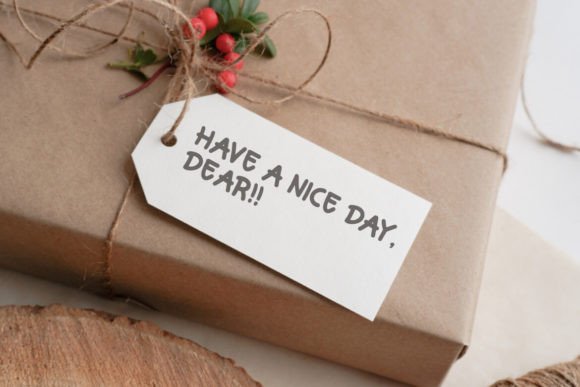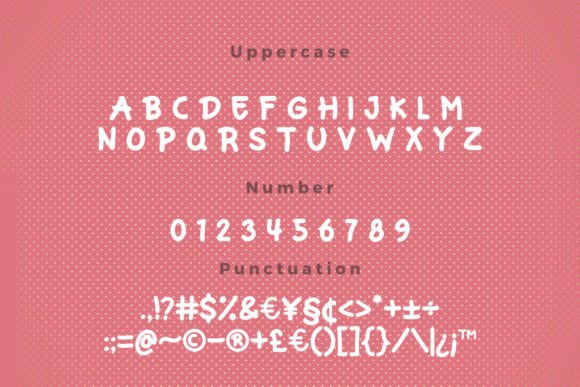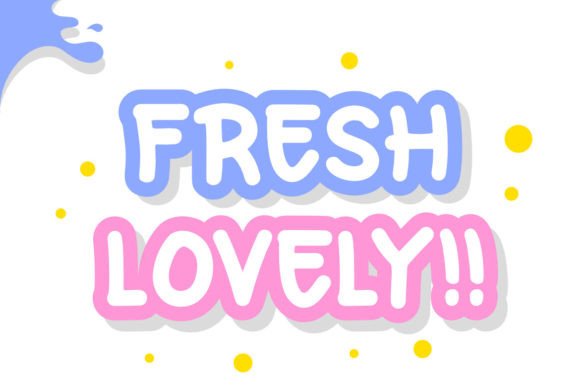
Introducing Deeps Font: A Fun and Modern Cartoon-Style Typography
In the world of typography, fonts play a crucial role in conveying messages, expressing emotions, and creating visual identities. For designers, crafters, and creative enthusiasts, finding the perfect font can be a daunting task. However, if you’re looking for a fun, modern, and high-quality font that can elevate your designs, look no further than Deeps Font.
**Deeps a Fun and Modern Font**
Deeps Font is a premium quality font, inspired by cartoon-style typography. Its unique and playful design makes it an excellent choice for a wide range of creative projects. Whether you’re designing flyers, quotes, posters, banners, packaging, merchandise, logotypes, or anything else, Deeps Font is the perfect companion.
What Makes Deeps Font Special?
Deeps Font stands out from the crowd due to its exceptional characteristics. Here are some of the key features that make it a must-have font:
- Cartoon-style typography: Deeps Font boasts a playful and fun design, reminiscent of cartoon-style typography. Its bold lines, rounded shapes, and vibrant feel make it perfect for projects that require a youthful and energetic vibe.
- High premium quality: Deeps Font is crafted with meticulous attention to detail, ensuring a high level of quality that rivals professional fonts. Its smooth curves, precise lines, and consistent letterforms make it a joy to work with.
- Versatility: Deeps Font is an incredibly versatile font that can be used for a wide range of projects. From print materials like flyers, posters, and brochures to digital applications like social media graphics, presentations, and more, Deeps Font adapts seamlessly.
Use Cases for Deeps Font
Deeps Font is an excellent choice for various creative projects, including:
- Flyers and brochures: Add a playful touch to your marketing materials with Deeps Font. Its bold and eye-catching design ensures your message stands out.
- Posters and banners: Create stunning posters and banners with Deeps Font. Its large format capabilities make it perfect for eye-catching displays.
- Packaging and merchandise: Deeps Font is an excellent choice for product packaging, t-shirts, mugs, and other merchandise. Its fun and playful design adds a unique touch to your products.
- Logotypes and branding: Establish a strong brand identity with Deeps Font. Its modern and youthful design makes it perfect for startups, businesses, and entrepreneurs.
Tips for Using Deeps Font Effectively
To get the most out of Deeps Font, follow these expert tips:
- Experiment with colors: Deeps Font looks great in bold and bright colors. Don’t be afraid to try out different color combinations to create a unique look.
- Mix and match: Combine Deeps Font with other fonts to create a visually appealing contrast. Use it as a headline font and pair it with a simpler font for body text.
- Play with sizes: Deeps Font is versatile and works well in various sizes. Experiment with different font sizes to create visual hierarchy and emphasis.
In conclusion, Deeps Font is a fantastic addition to any designer’s or crafter’s toolkit. Its fun, modern, and high-quality design makes it perfect for a wide range of creative projects. With its versatility, playfulness, and premium quality, Deeps Font is sure to become a favorite font in your collection. So, what are you waiting for? Get creative with Deeps Font and take your designs to the next level!